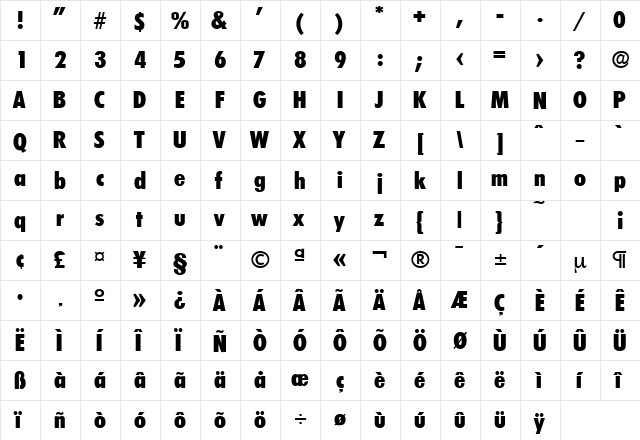
LimerickCond-Serial-ExtraBold Regular Font Preview
Design Context for LimerickCond-Serial-ExtraBold Typeface
LimerickCond-Serial-ExtraBold takes a measured approach to typography — its balanced proportions and neutral character make it a reliable workhorse for both digital and print work. Its bold stroke weight gives it real presence on the page. Its narrow stance lets it pack a punch even in space-constrained designs.